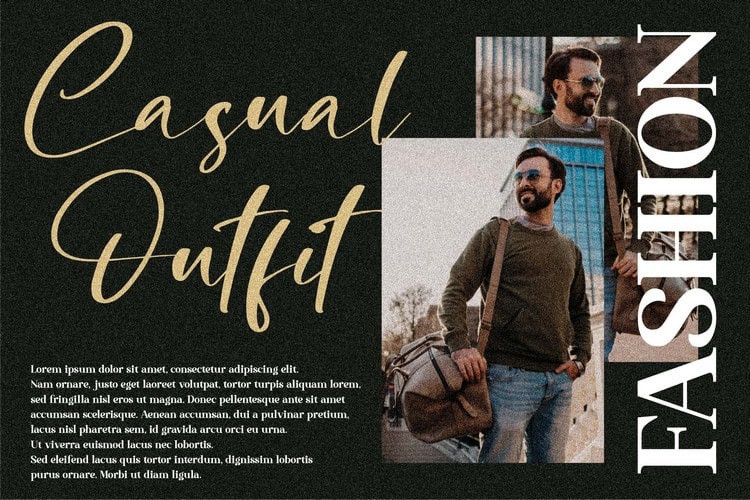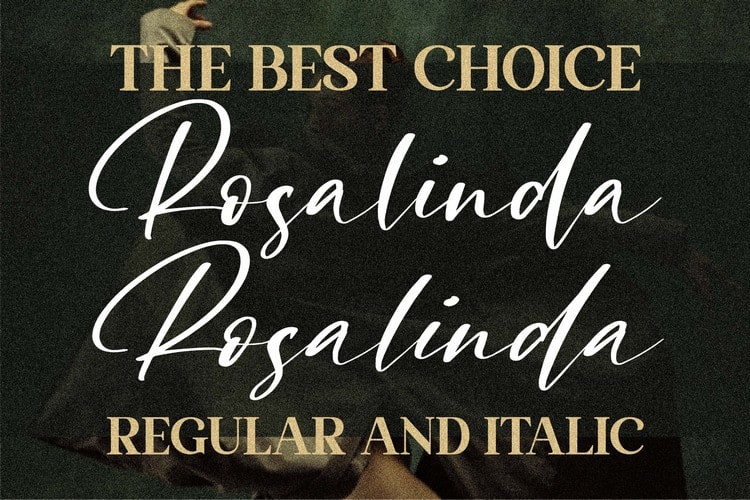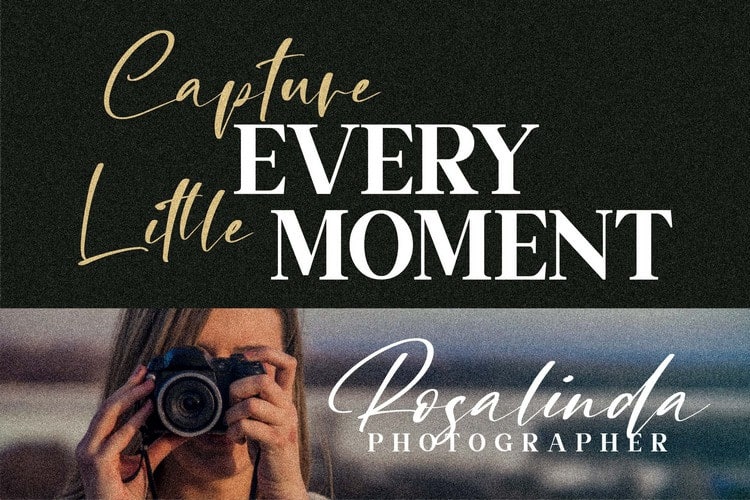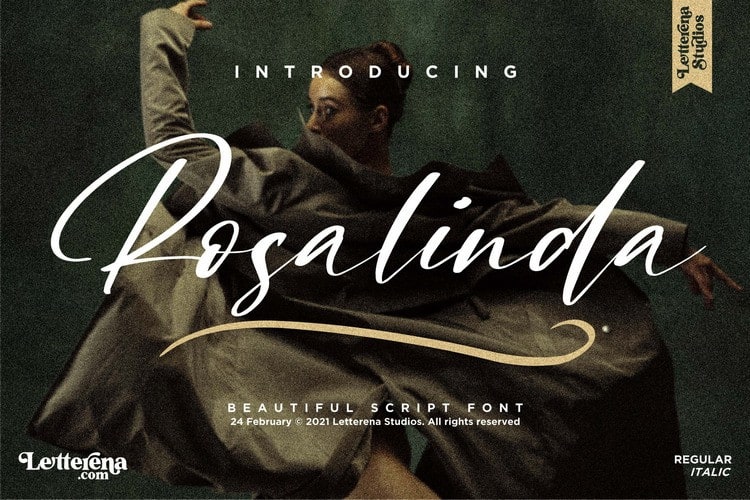
Rosalinda Calligraphy Font is a simple and classy calligraphy typeface created by Letterena Studios, suitable for any projects such as: logos, branding projects, homeware designs, product packaging, mugs, quotes, posters, shopping bags, t-shirts, book covers, name card, invitation cards, greeting cards, label, photography, watermark, special events, and all your other lovely projects that need a beautiful Script taste.